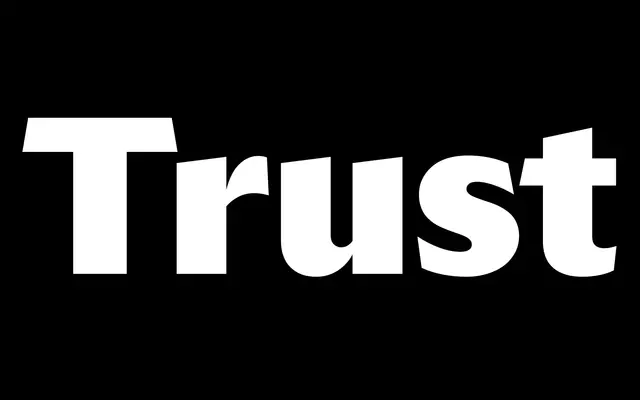
Trust
MCKL · Jeremy Mickel · 2023
A 144-style display collection by Jeremy Mickel spanning a continuum from sans to serif, rooted in US coin lettering and 1960s–70s phototype.
Designed by Jeremy Mickel and published in 2023, Trust takes its initial spark from the lettering on the bicentennial dollar and the quarter, and draws further on a wide field of pre-digital typefaces including Optima, Friz Quadrata, Kabel and Serif Gothic. The collection is organised into nine subfamilies arranged along axes of contrast and serif presence, each available in eight weights from XLight to XBlack with matching italics, giving 144 styles in total. A unifying sharp diagonal in characters such as A, M, N, V and W runs through every subfamily, traceable directly to the coin source, and a suite of stylistic sets allows further control over voice.
Trust spans a continuum from sans to serif with variable contrast, drawing on phototype-era references including Optima, Friz Quadrata and Serif Gothic, making it a display system rather than a single category. Its flared strokes and sharp diagonal motifs place it firmly in the display classification.